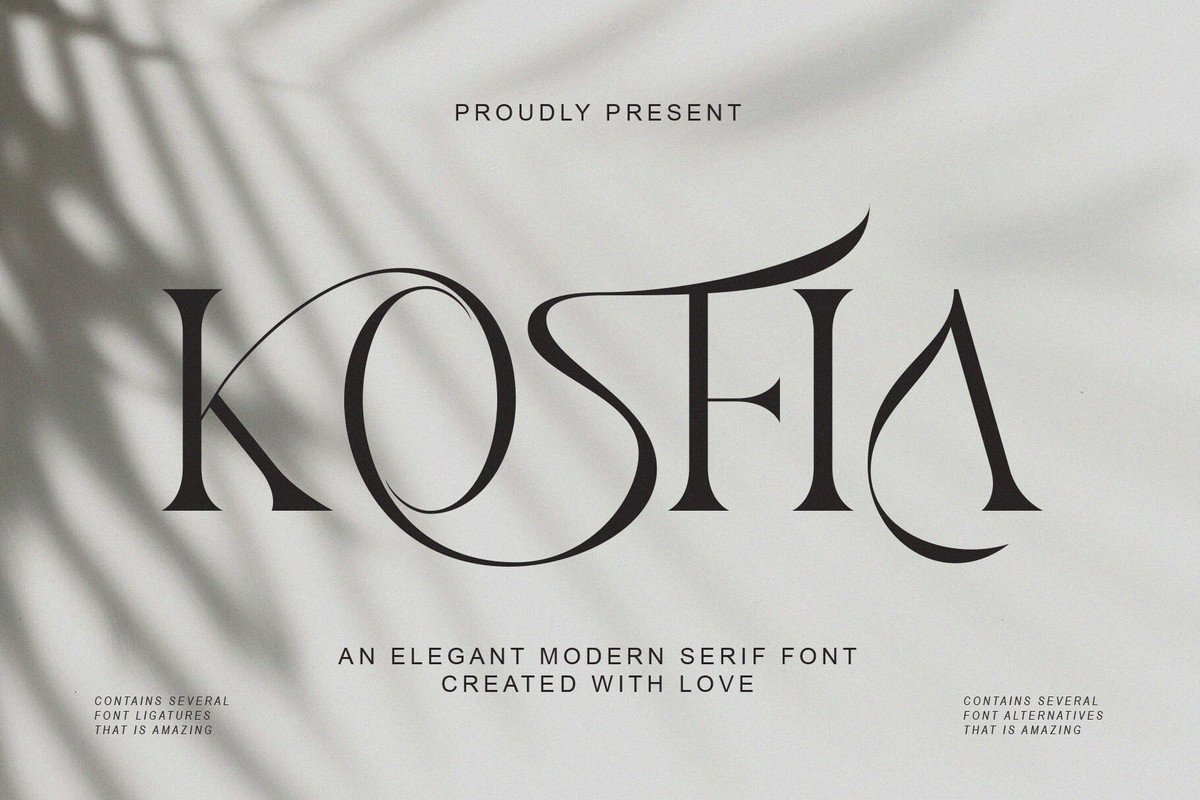
Kosfia Font
Kosfia Font excels in Islamic cultural centers, traditional mosque signage, Arabic heritage exhibitions, Islamic education materials, traditional Islamic art galleries, Quran study publications, Islamic architecture presentations, cultural diversity programs, interfaith dialogue initiatives, and authentic Islamic lifestyle brands. This dignified typeface brings Islamic heritage and cultural authenticity to any faith-focused design project.
Kosfia Font is exciting because it embodies the spiritual dignity and cultural reverence associated with Islamic traditions, featuring respectful letterforms that honor the sacred nature of Islamic culture while maintaining the artistic elegance that characterizes traditional Islamic design principles. Its spiritual character instantly conveys cultural respect, religious reverence, and the peaceful beauty that defines authentic Islamic artistic expression and community values.
Kosfia Font family includes Light, Regular, Medium, and Bold weights with traditional alternates, Islamic flourishes, cultural ornamental elements, and respectful symbols that enhance the spiritual aesthetic, providing cultural designers with dignified tools for creating typography that honors Islamic heritage and celebrates the peaceful traditions of Islamic civilization and religious community.
Islamic heritage designers appreciate Kosfia Font for its exceptional ability to convey spiritual dignity and cultural authenticity through respectfully crafted letterforms. The font's traditional character and Islamic details create immediate associations with peaceful worship, cultural heritage, and the rich spiritual traditions that have preserved Islamic culture across generations of faith community and religious scholarship.
The design inspiration behind Kosfia Font draws from traditional Islamic calligraphy, architectural patterns, and the rich artistic heritage of Islamic culture that emphasizes spiritual beauty, cultural respect, and the peaceful values that define Islamic civilization, making it particularly effective for religious institutions, cultural organizations, and interfaith initiatives that promote understanding and respect. Faith communities working on cultural bridge-building find this font essential.
Whether used for Islamic cultural centers, interfaith dialogue programs, or Islamic heritage celebrations, Kosfia Font delivers the perfect combination of spiritual dignity and cultural authenticity. Its respectful appeal and Islamic heritage make it an indispensable choice for organizations that preserve Islamic culture, promote religious understanding, and celebrate the peaceful traditions and rich spiritual legacy of Islamic civilization and faith community.